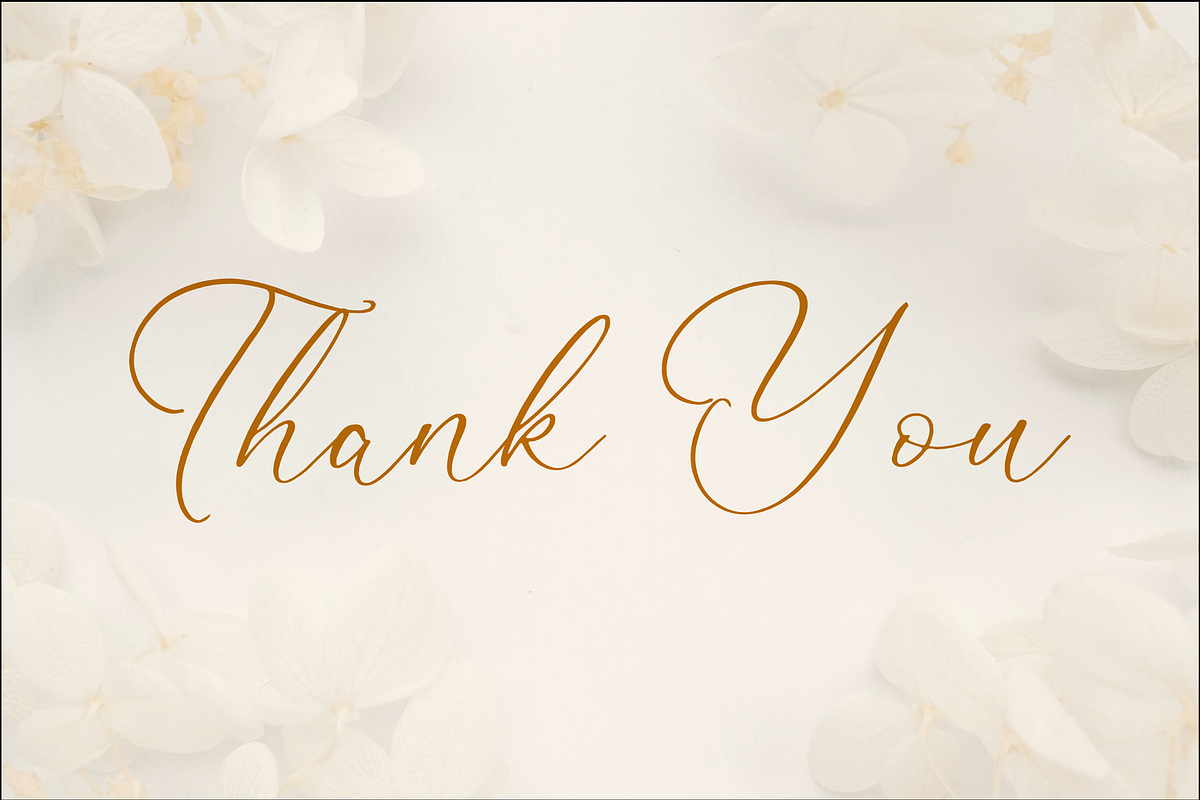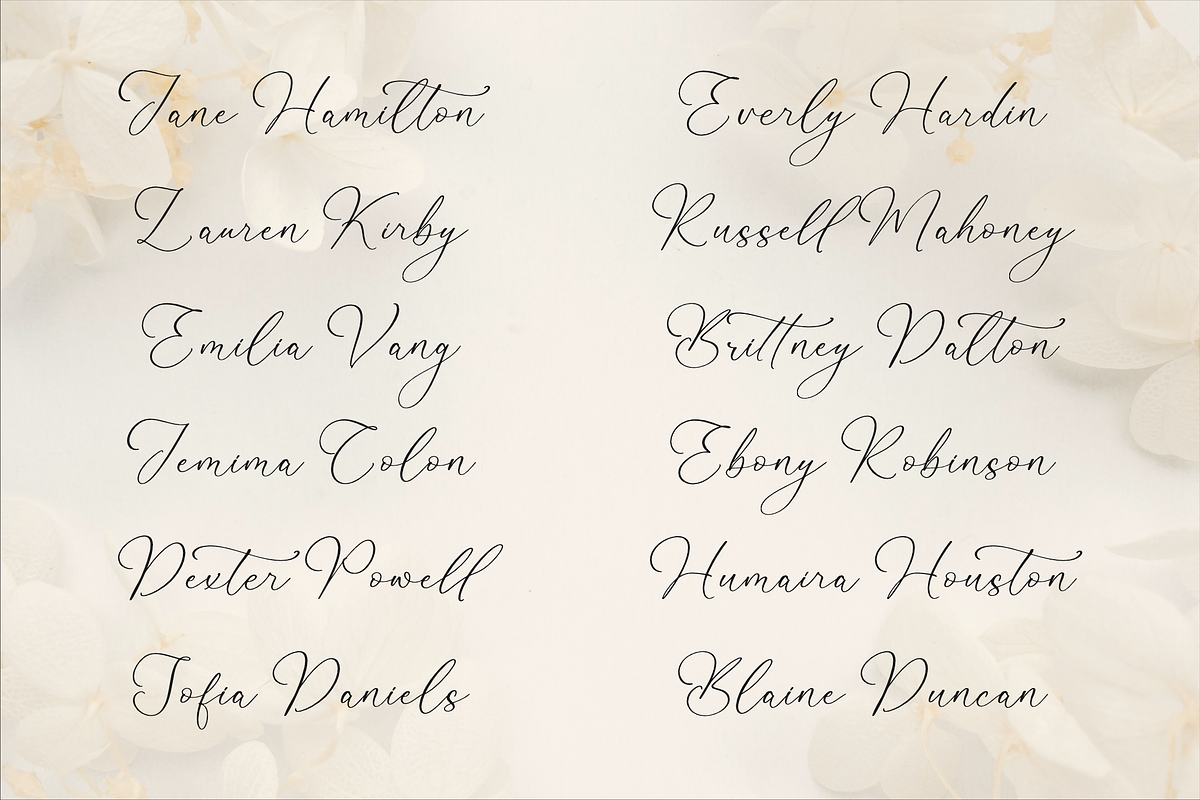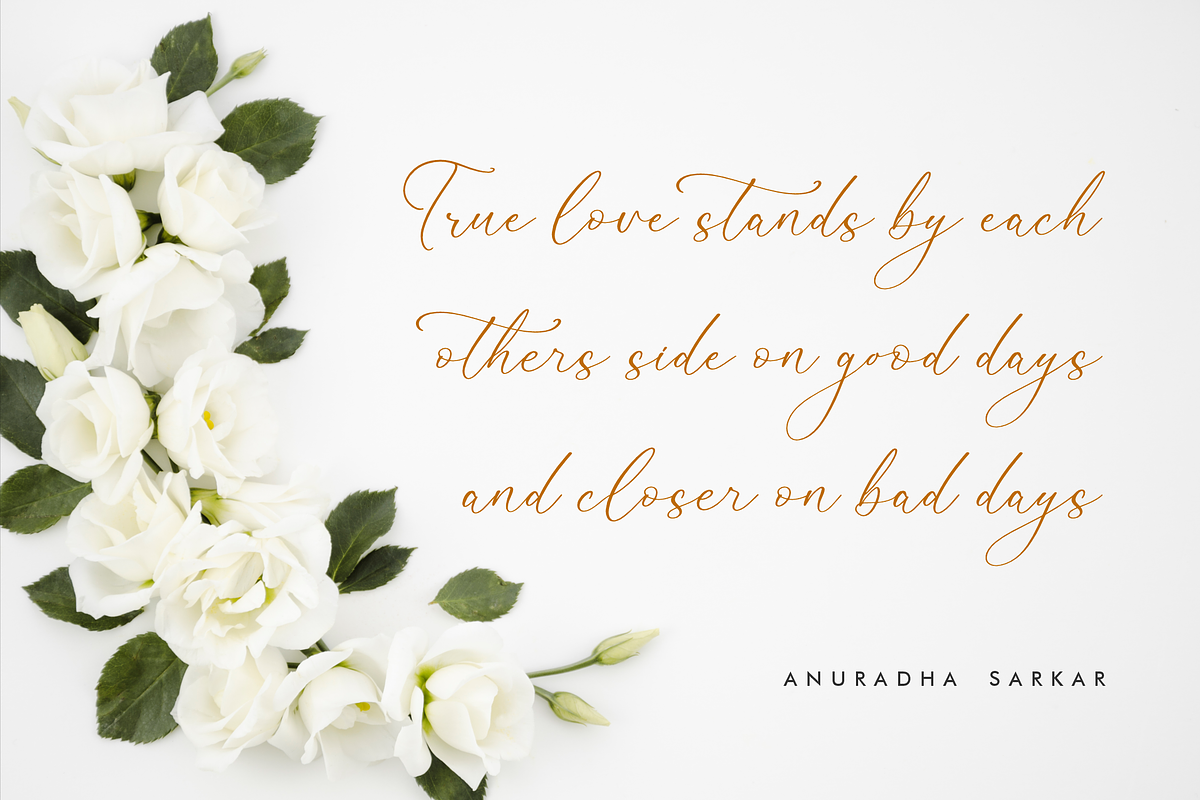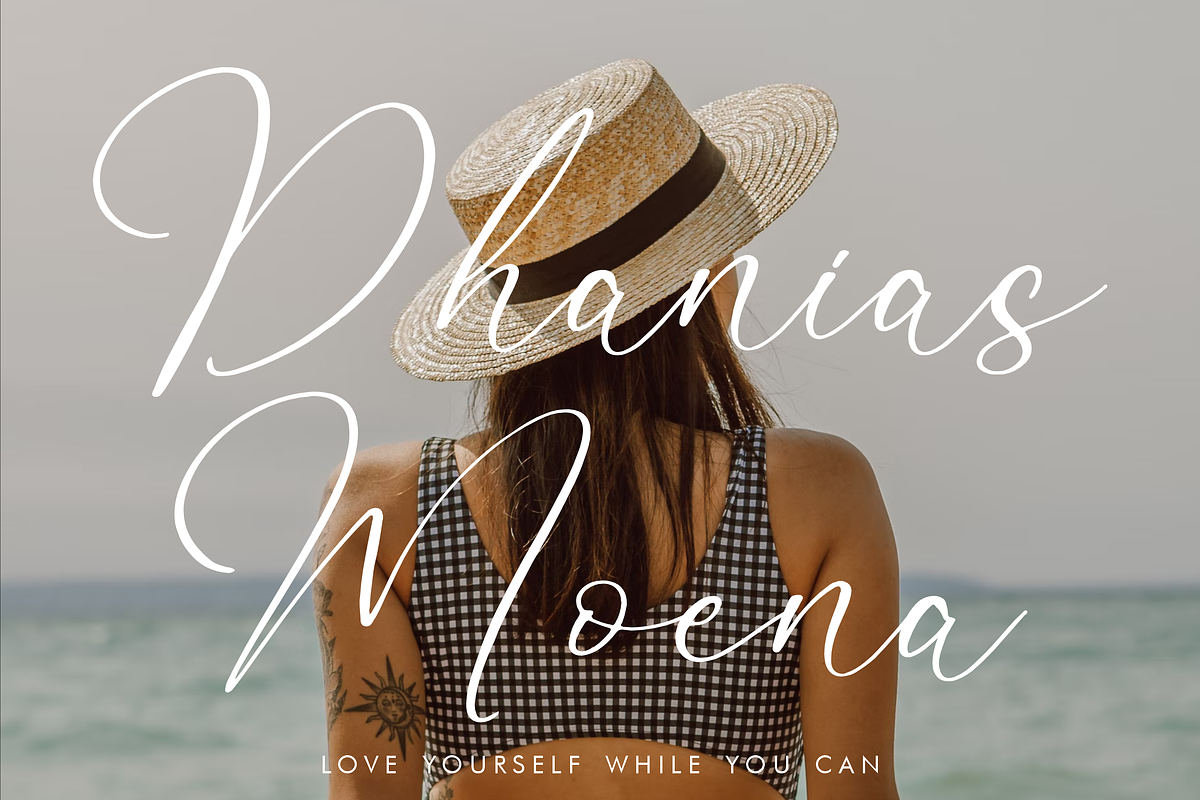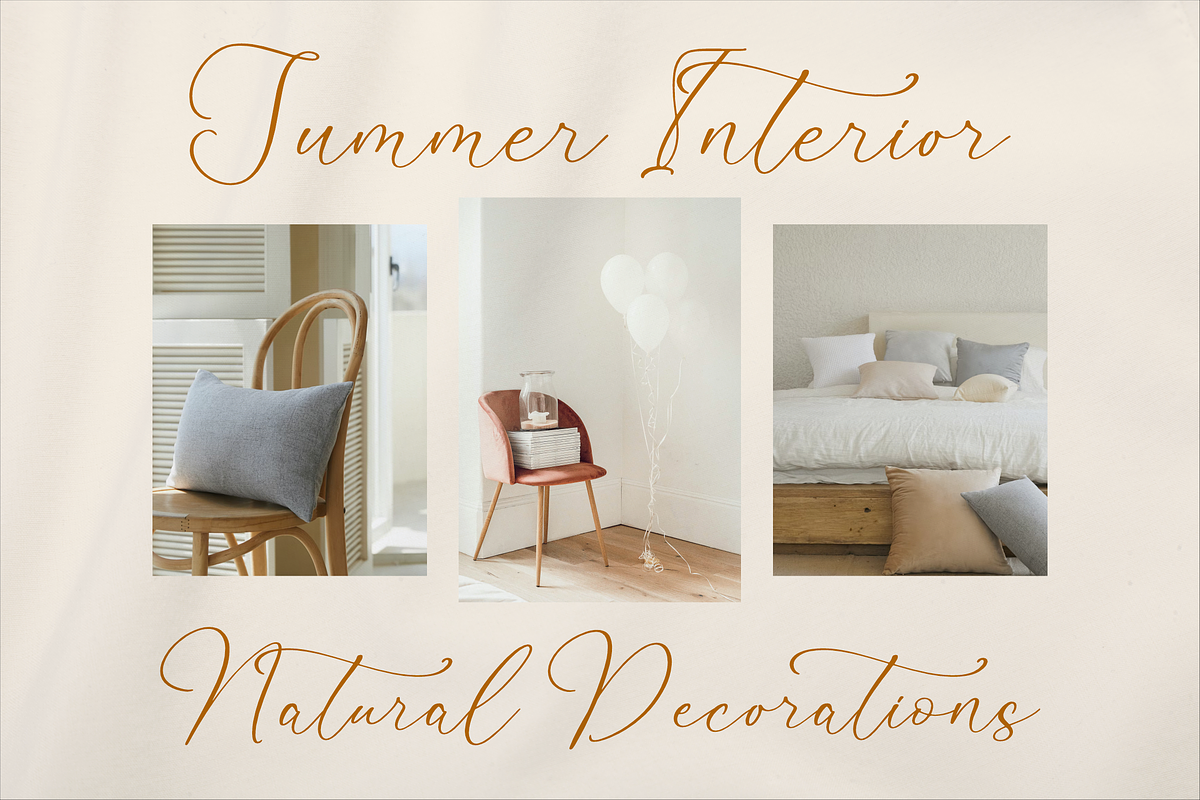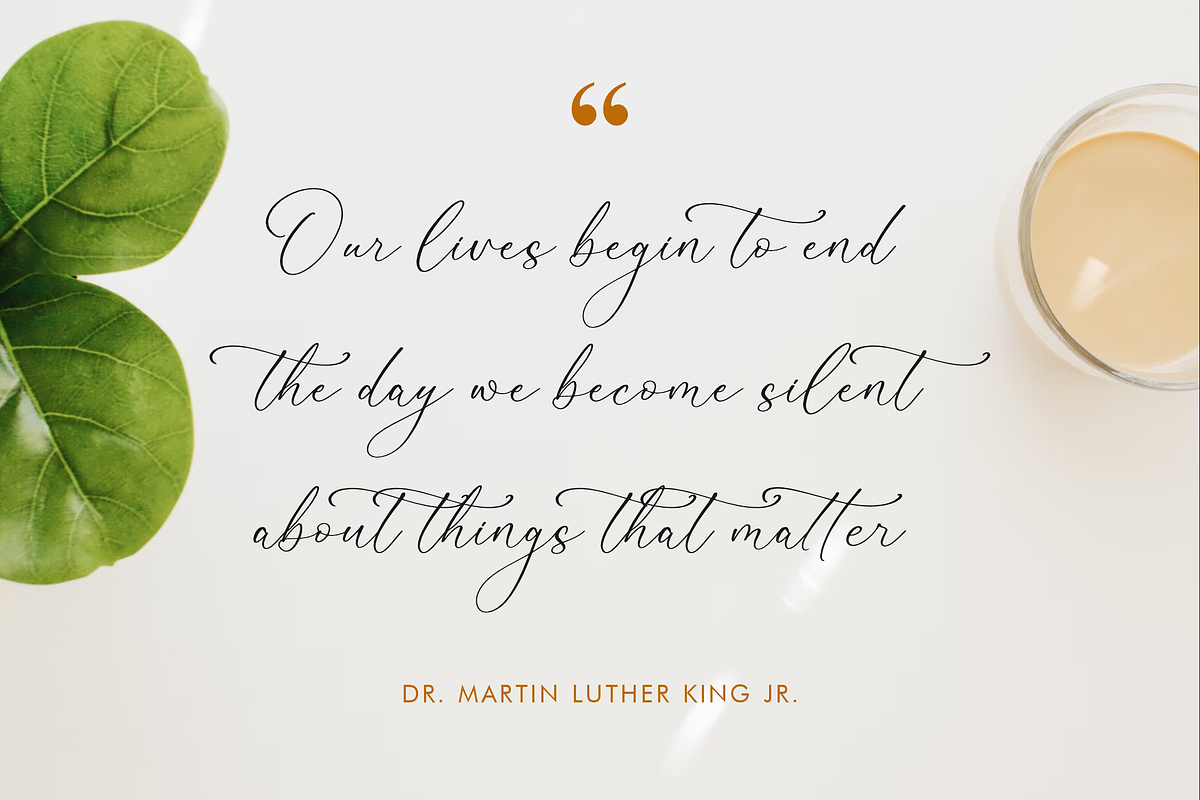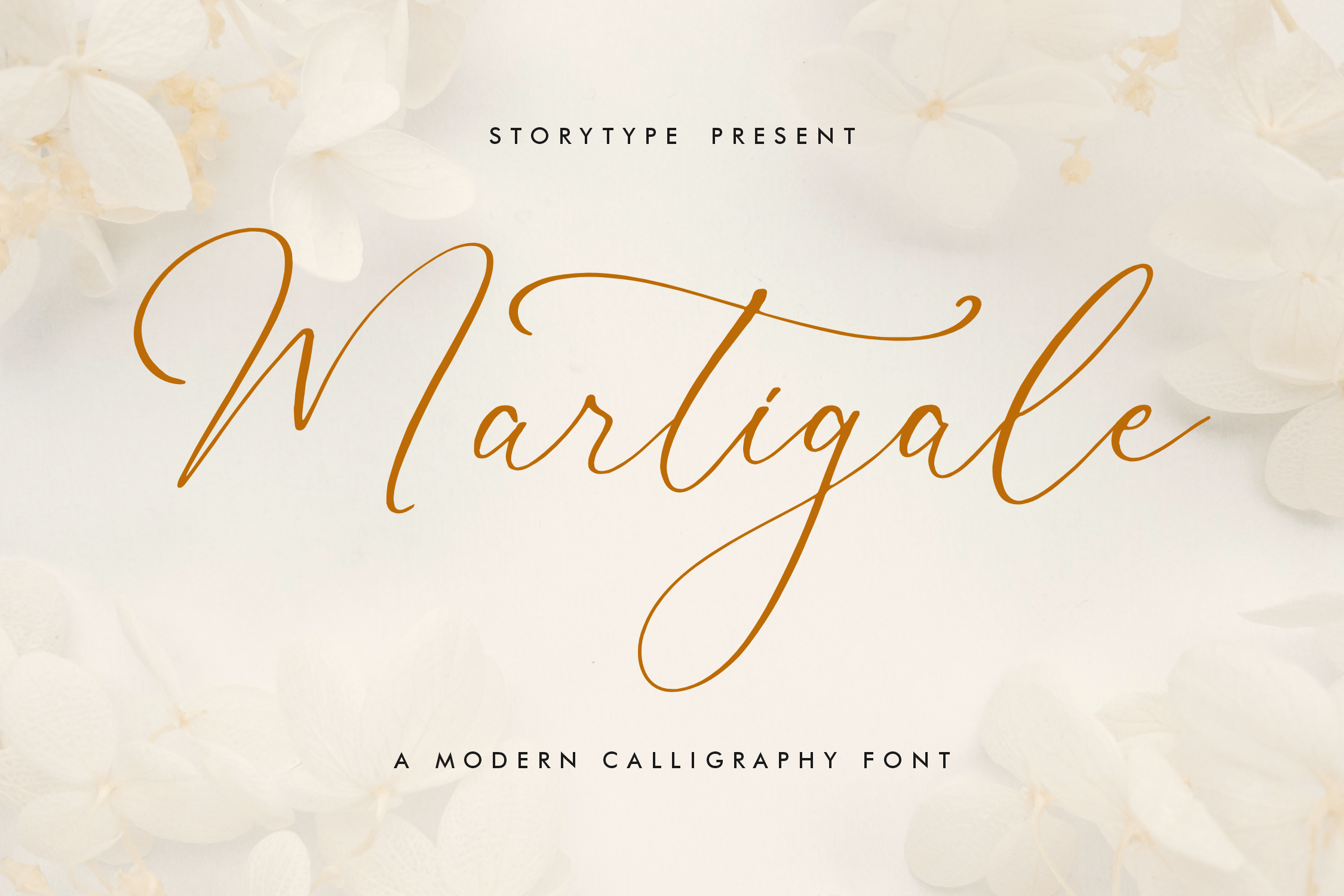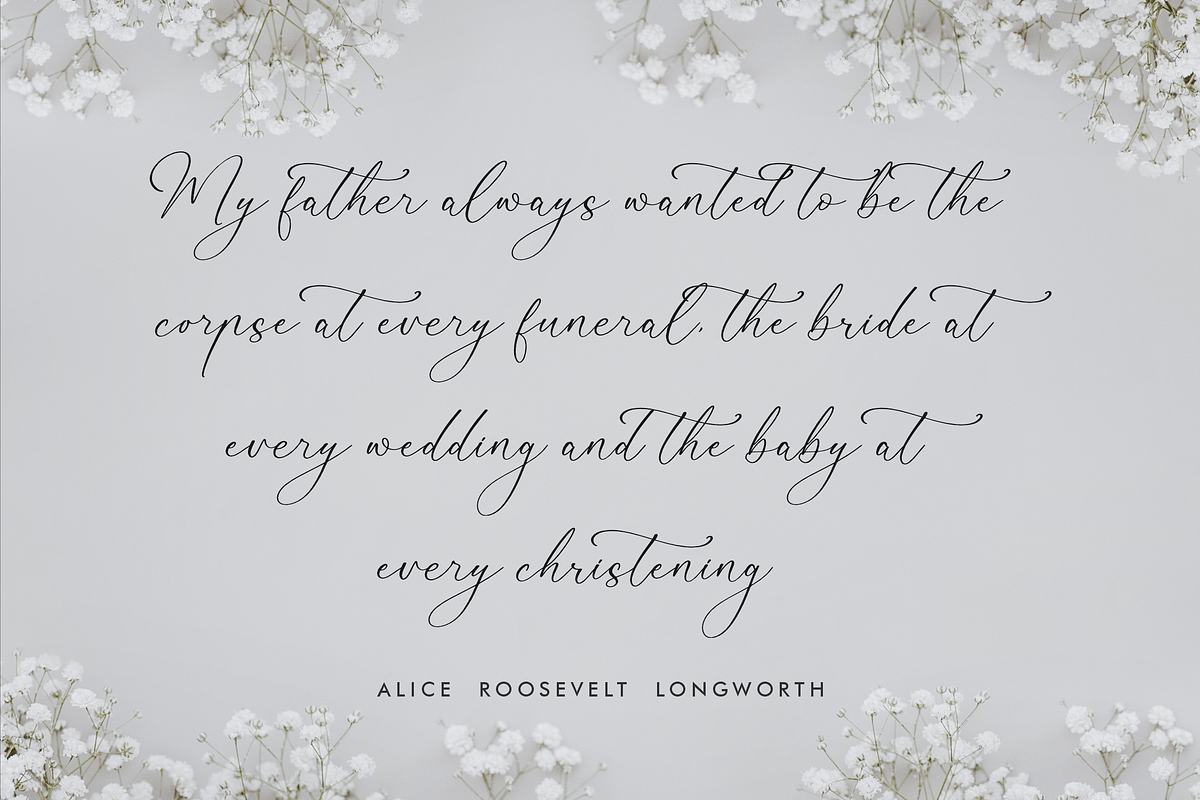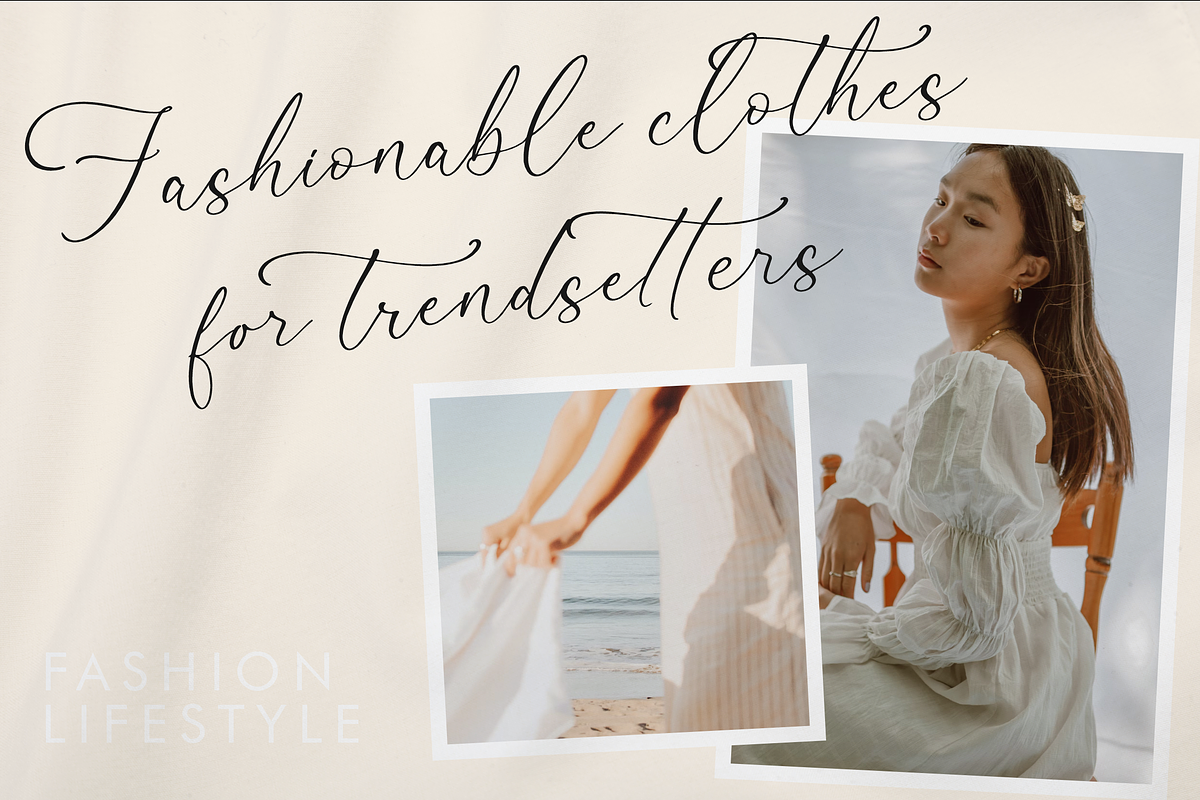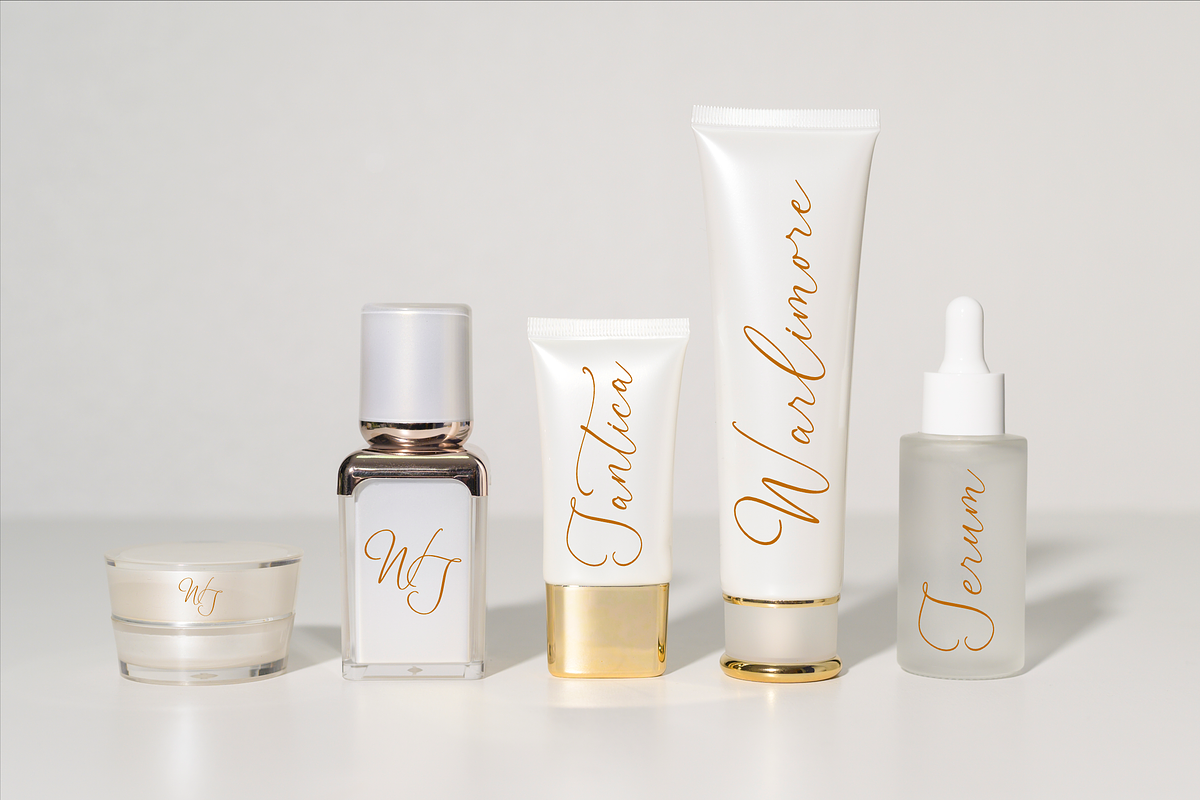
Martigale A Modern Calligraphy Font
Proudly present Martigale - Modern Calligraphy Font , created by Storytype, A luxury script that has own unique style & modern look. This typeface is perfect for an elegant & luxury logo, book or movie title design, fashion brand, magazine, clothes, lettering, quotes, and so much more.